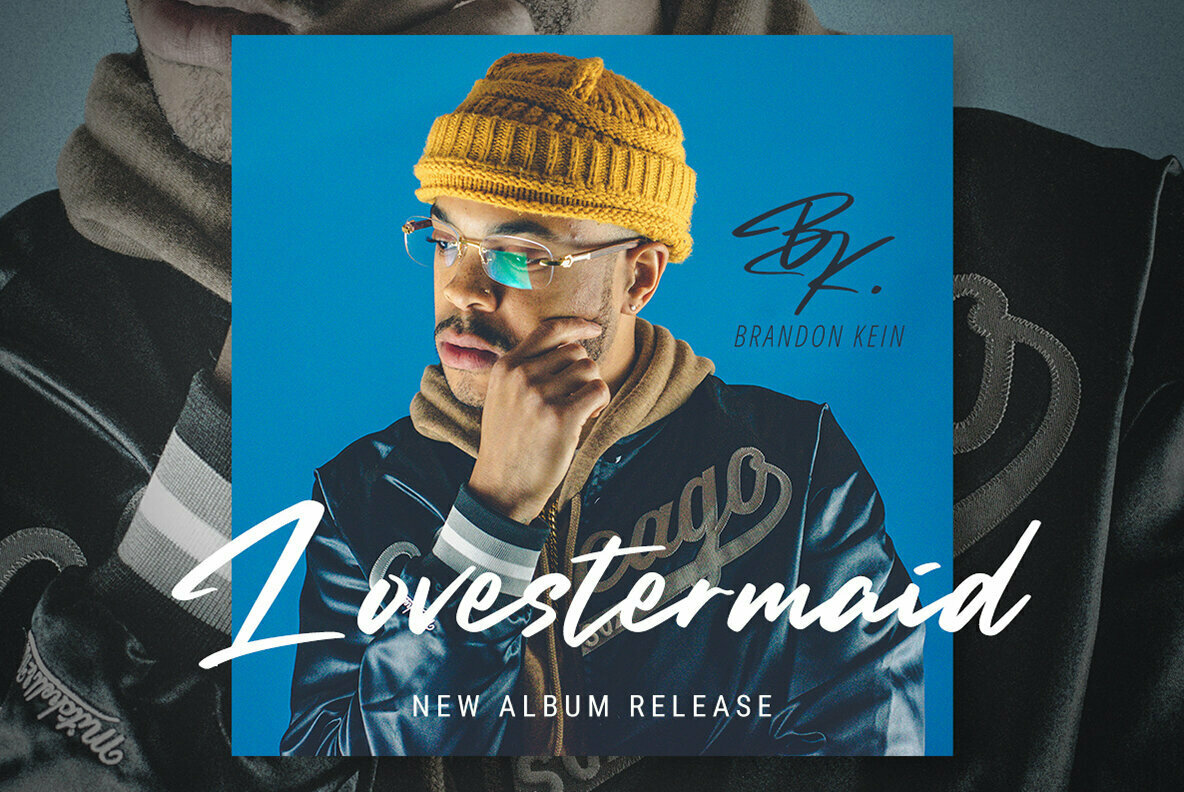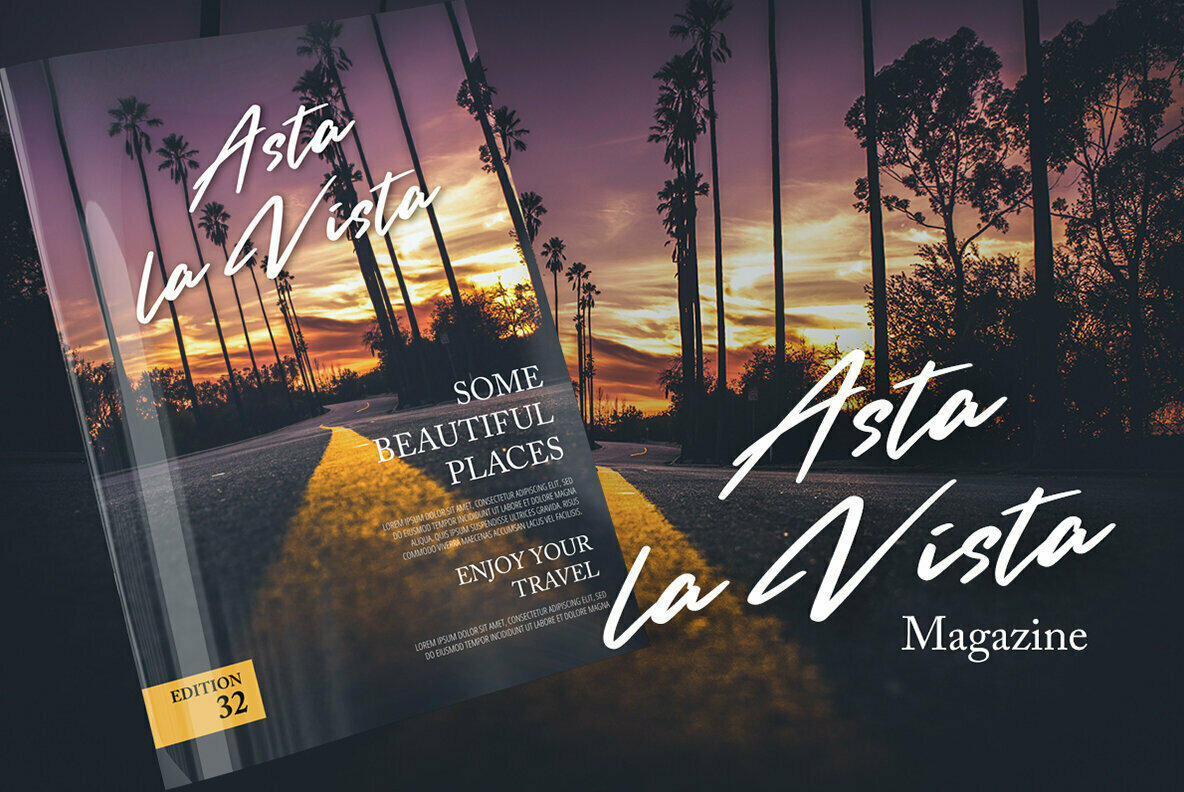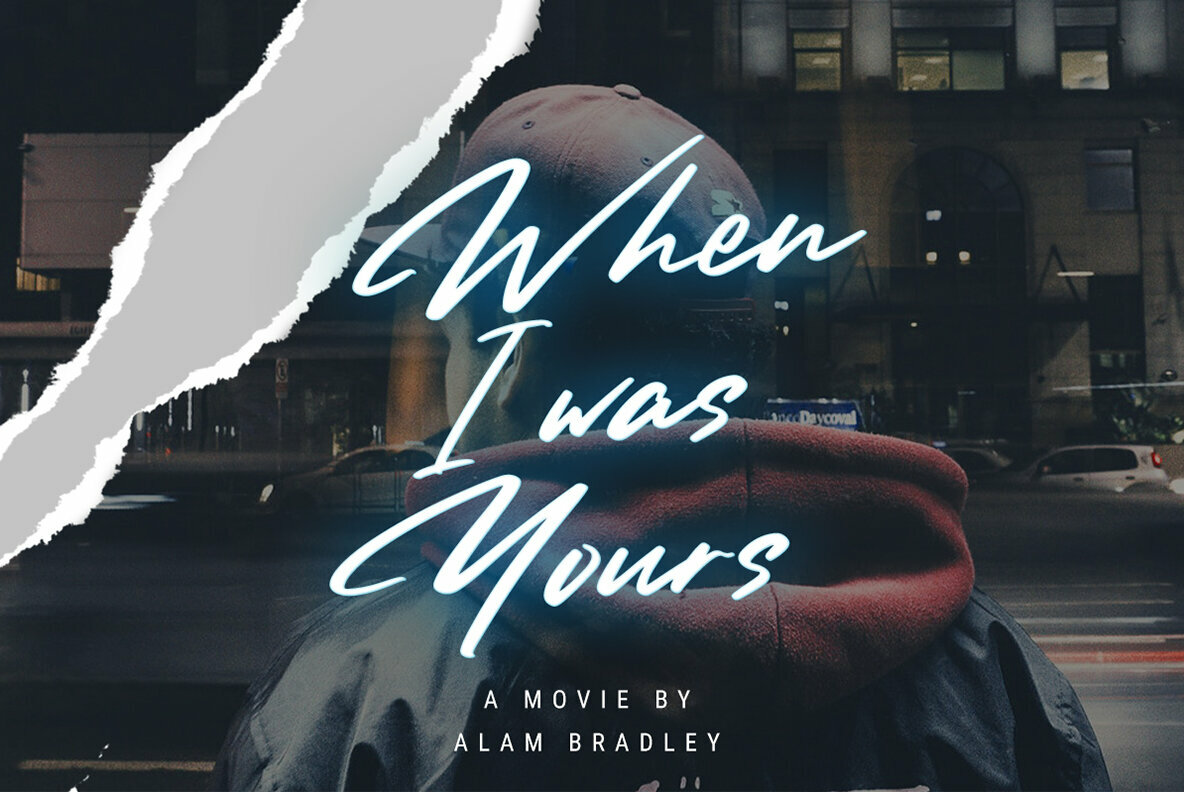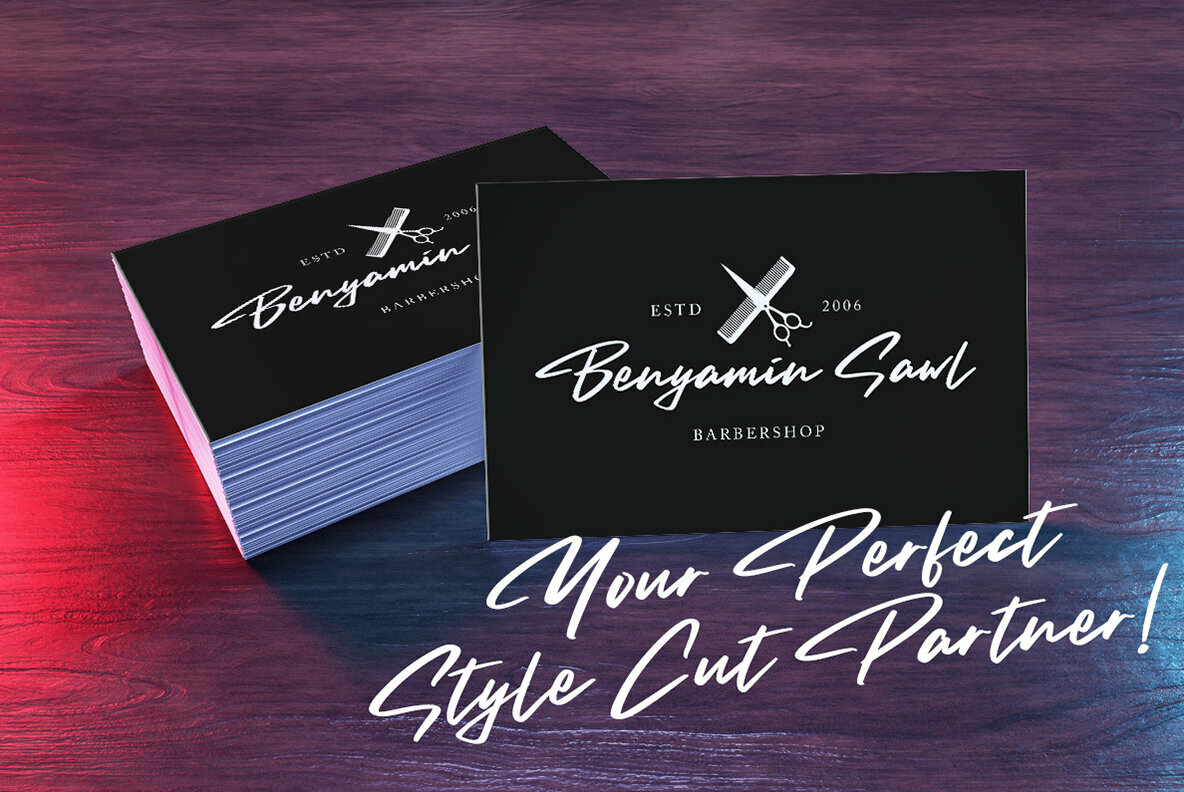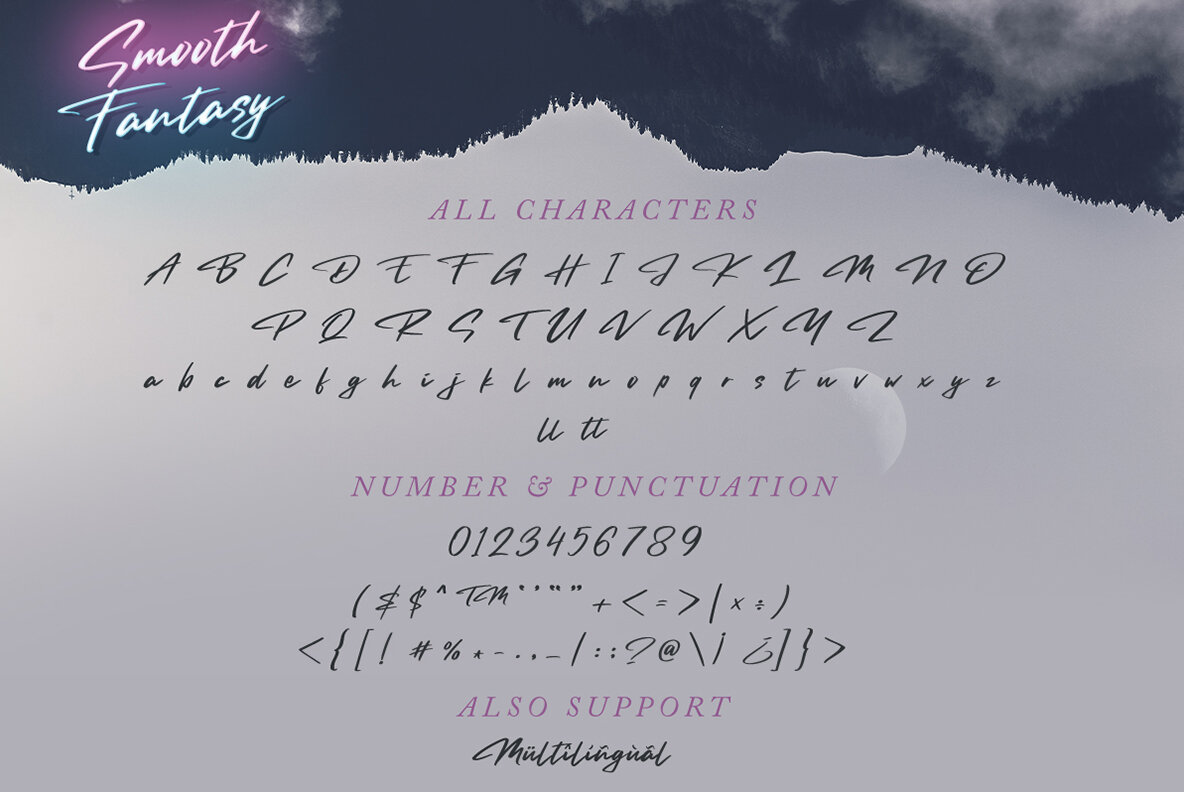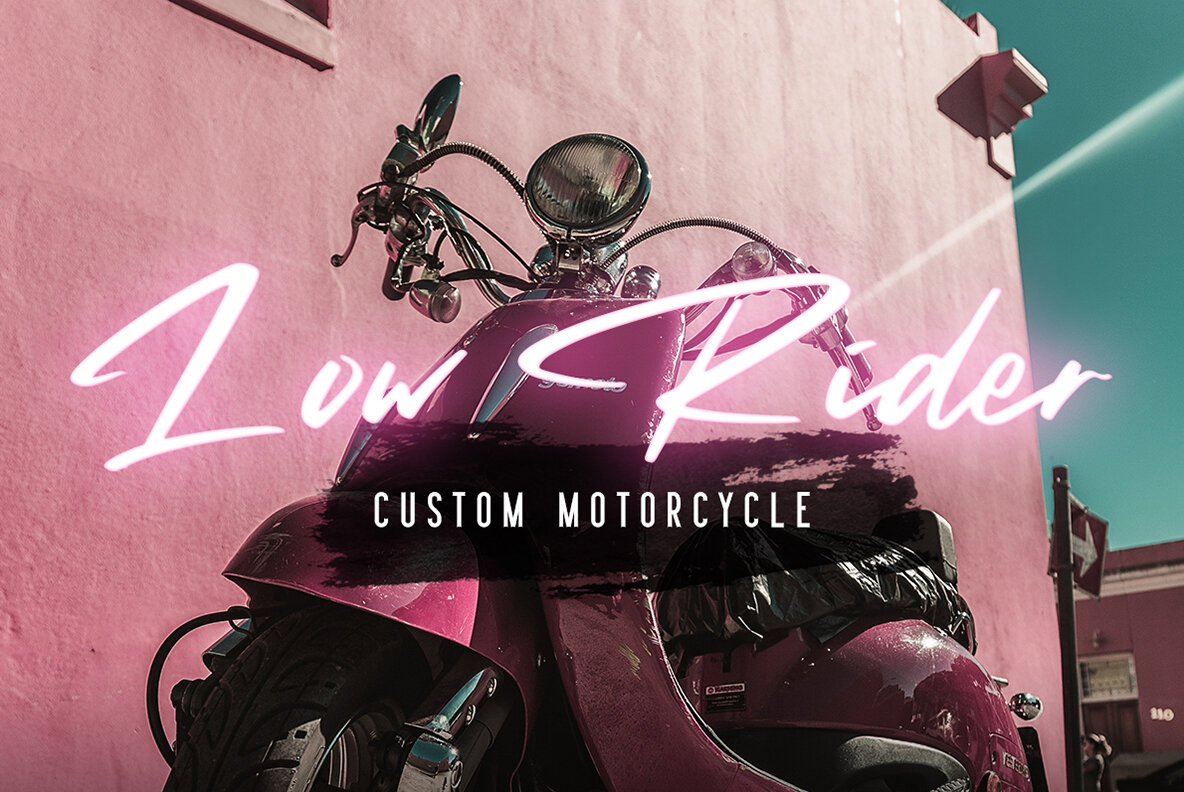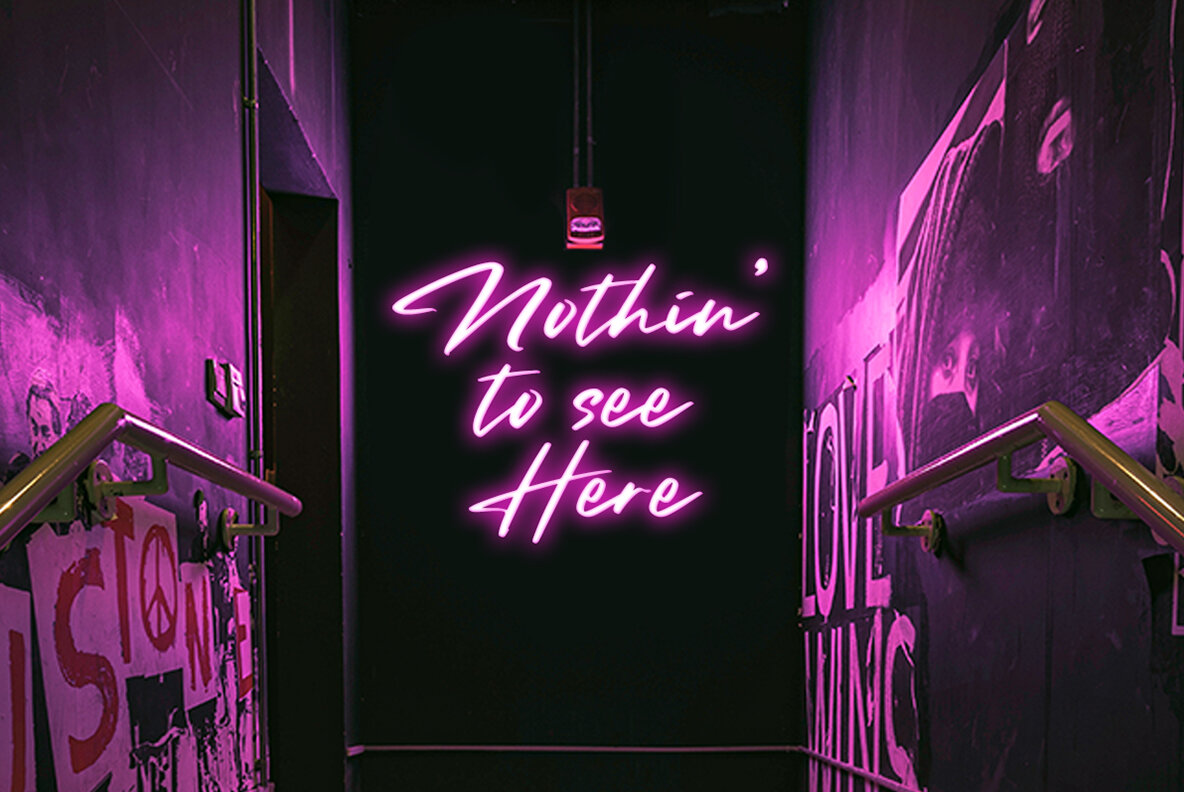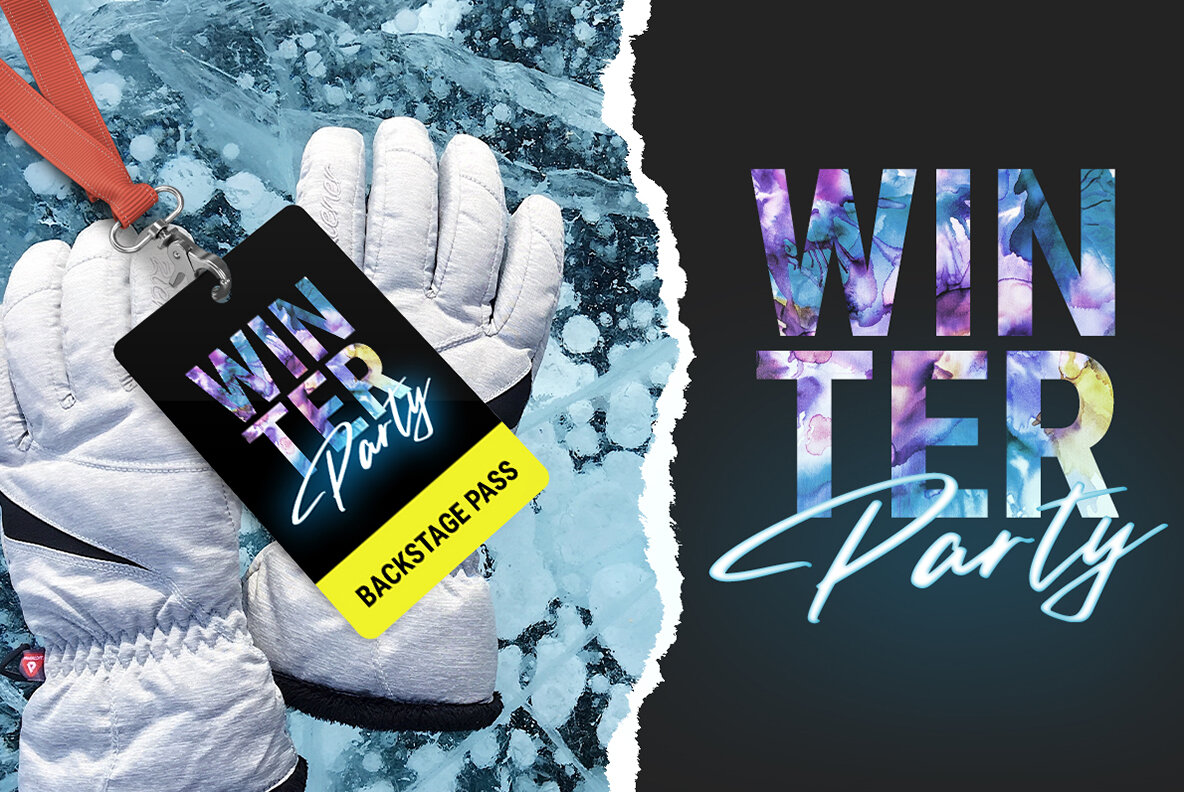
Smooth Fantasy Font
Smooth Fantasy
Smooth Fantasy presents an exquisite handwritten style that lends a chic and natural charm to your projects. Ideal for logotypes, branding, and quotes, this script font enhances your designs with its unique character.Smooth Fantasy: Elegant Handwritten Script